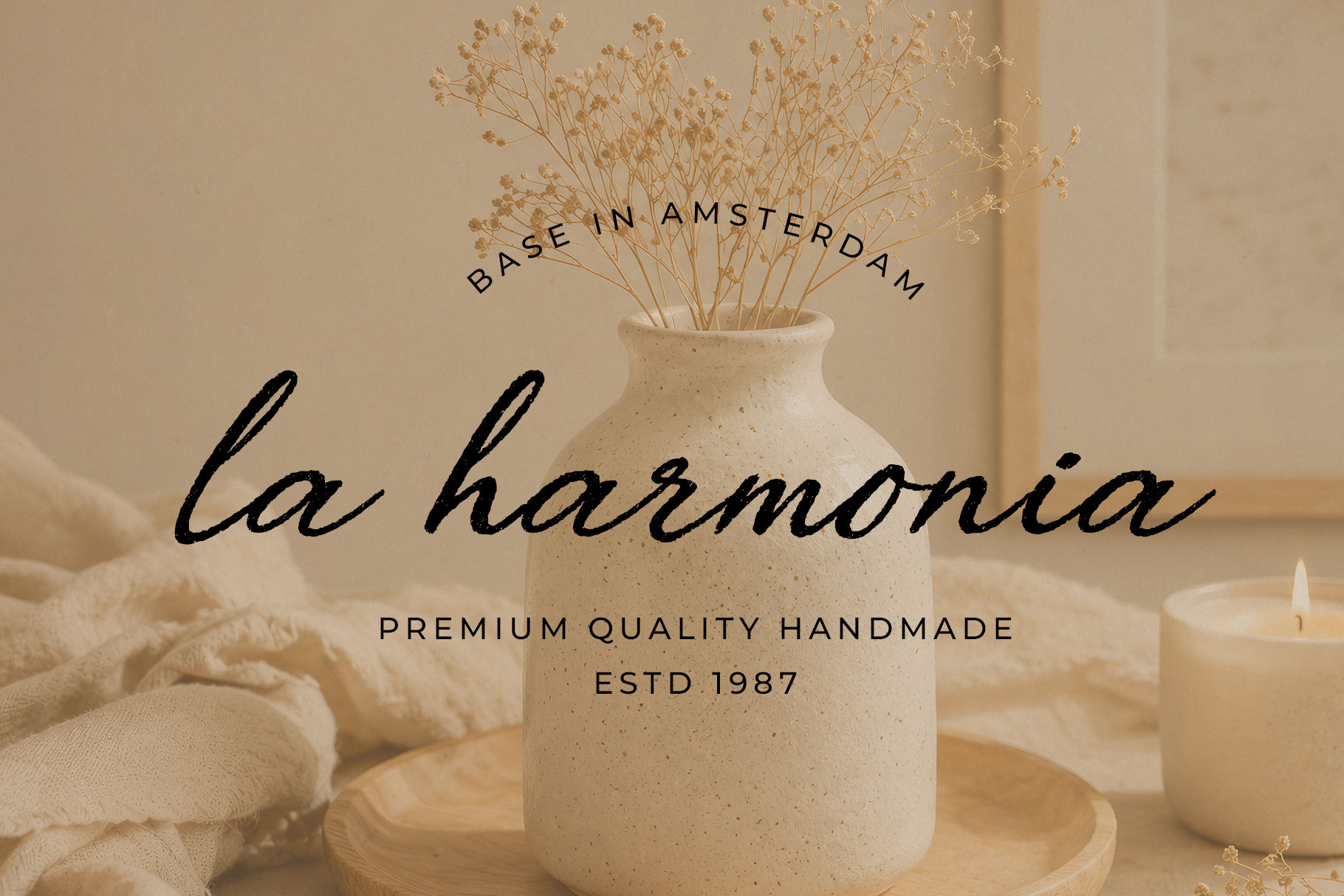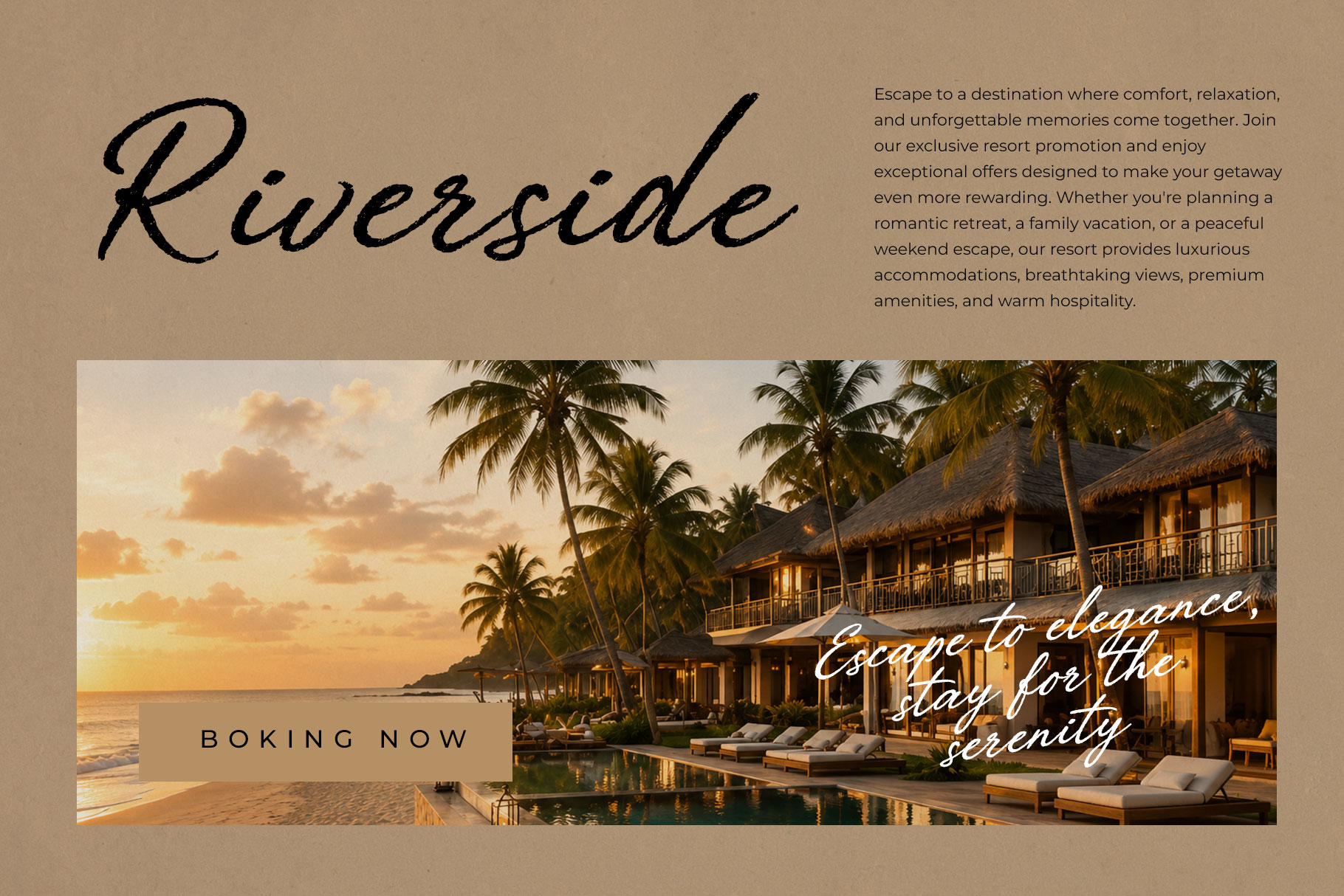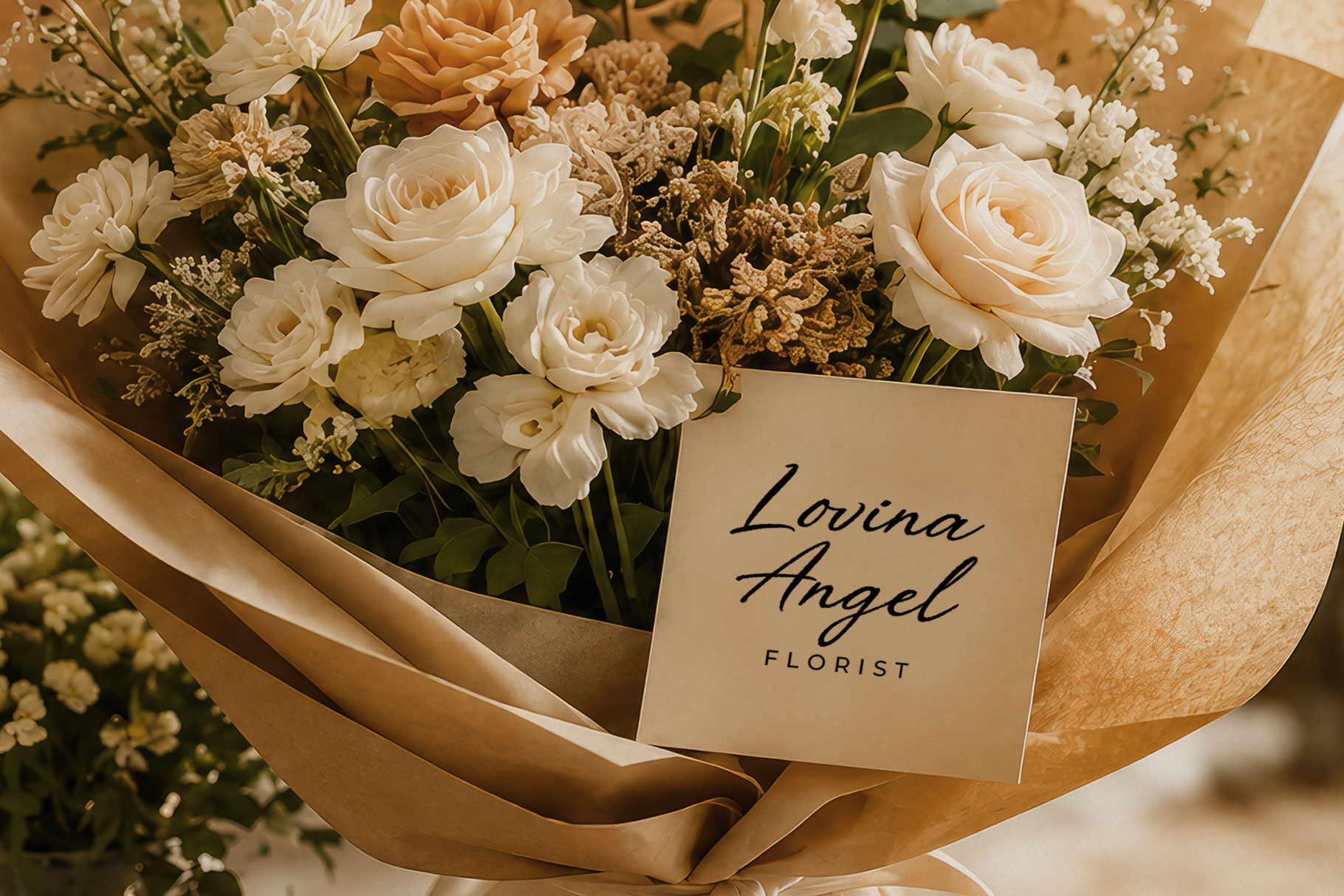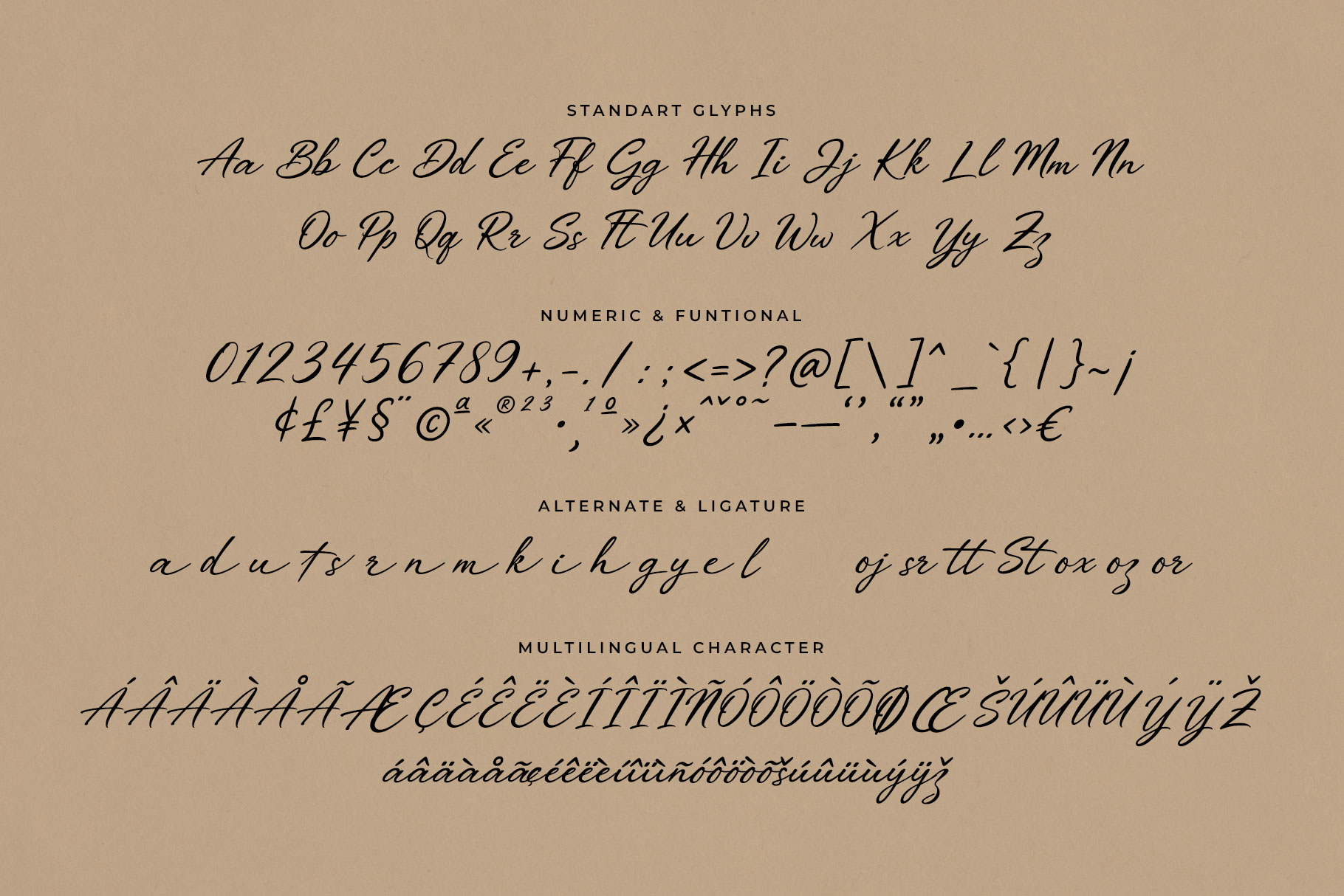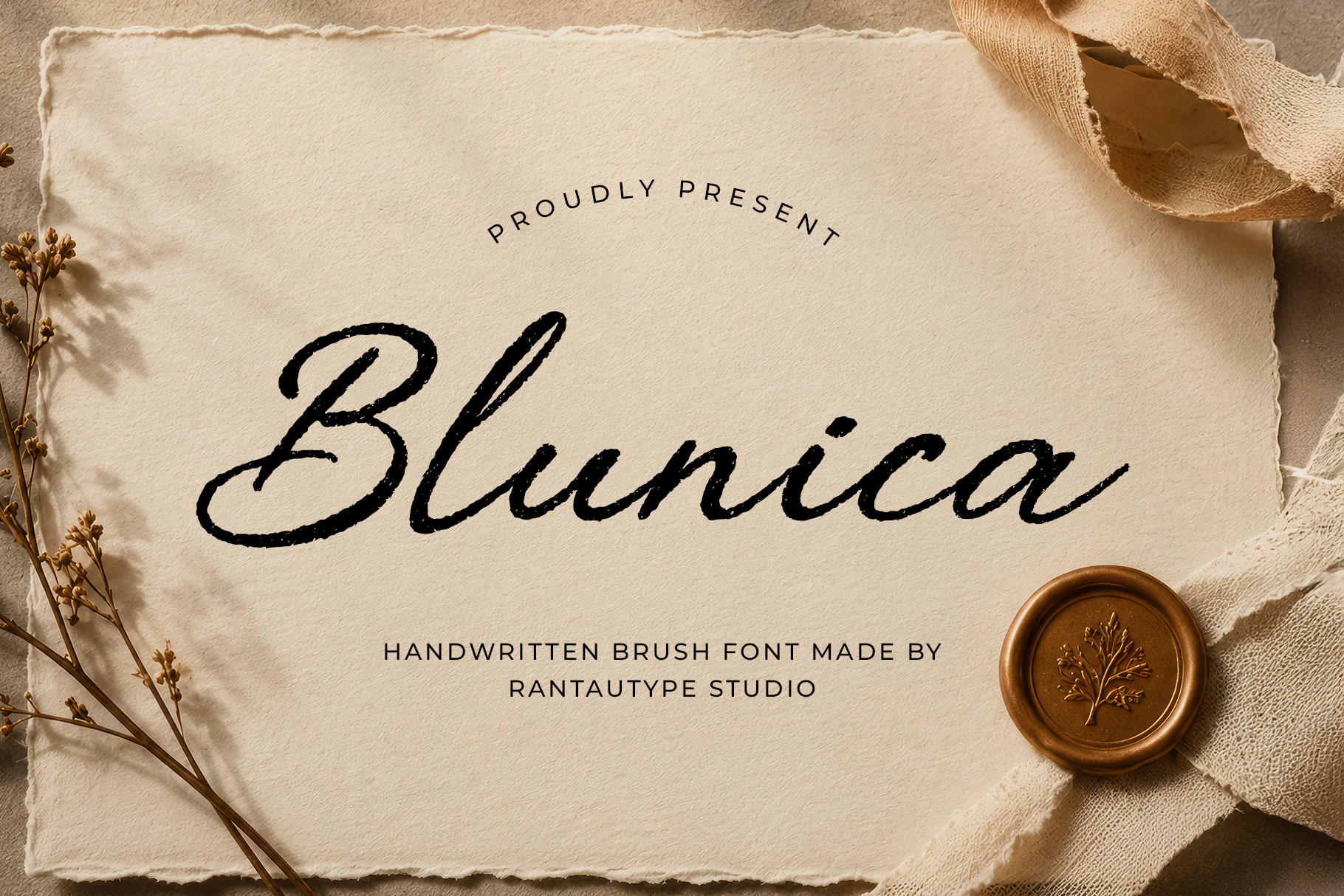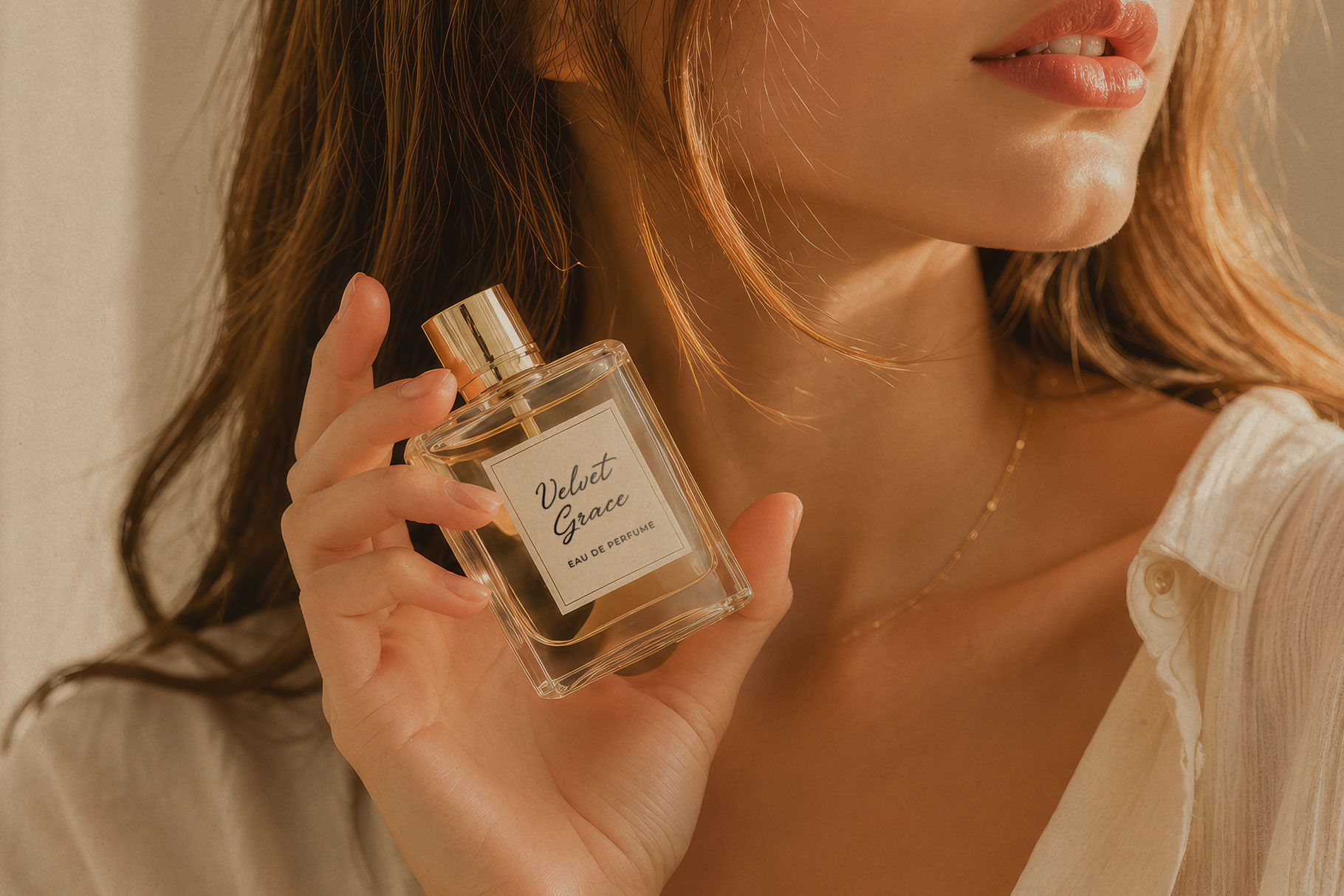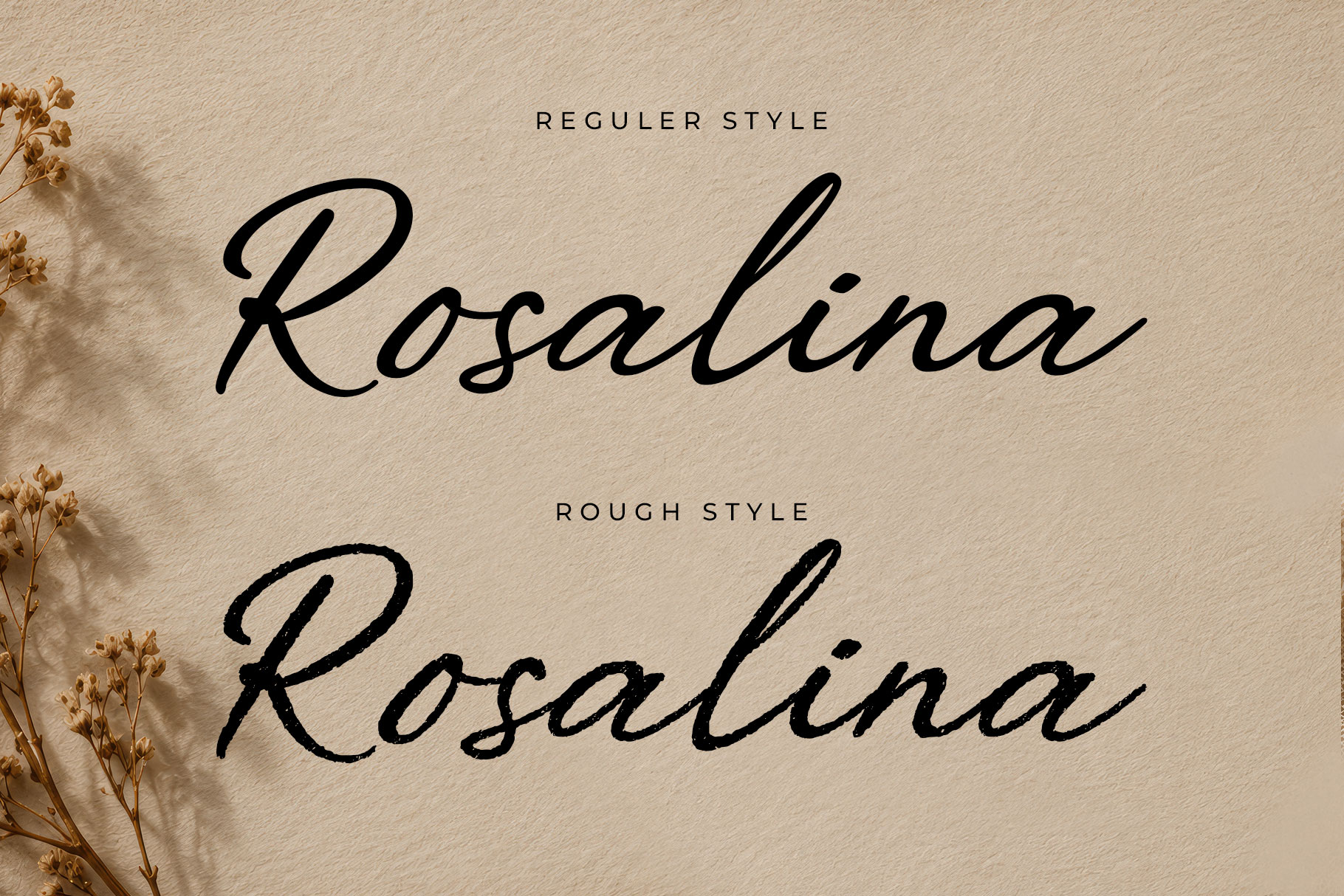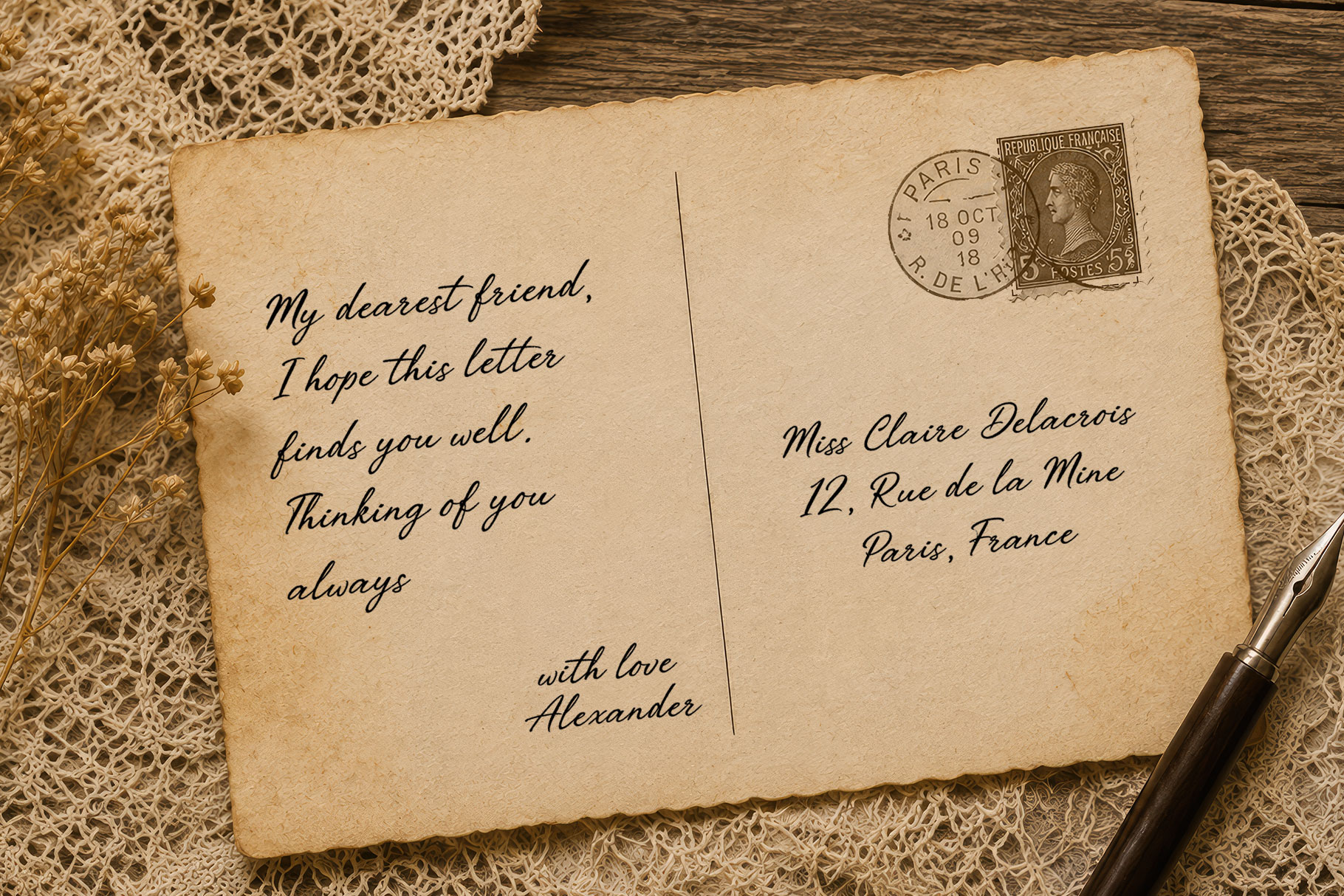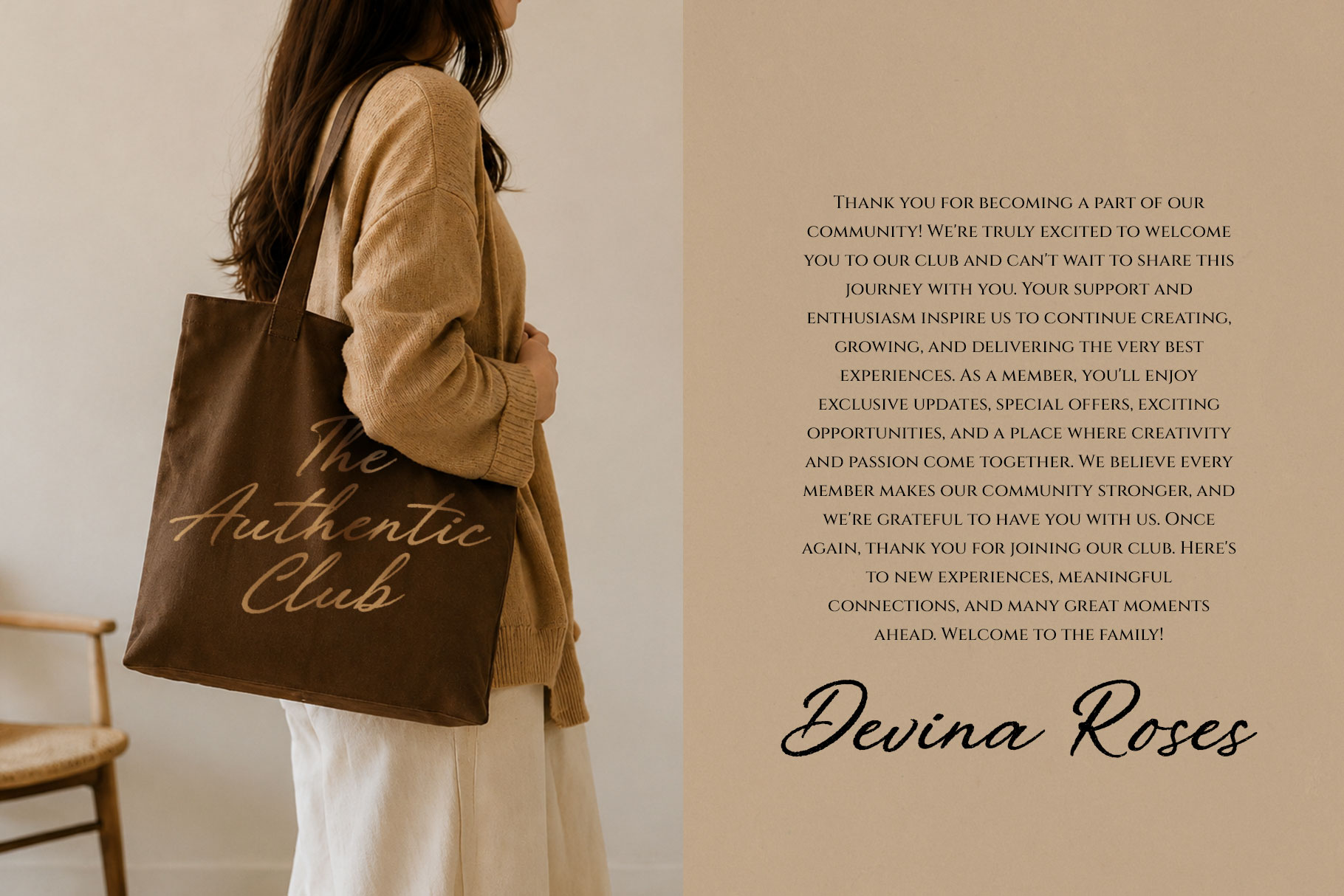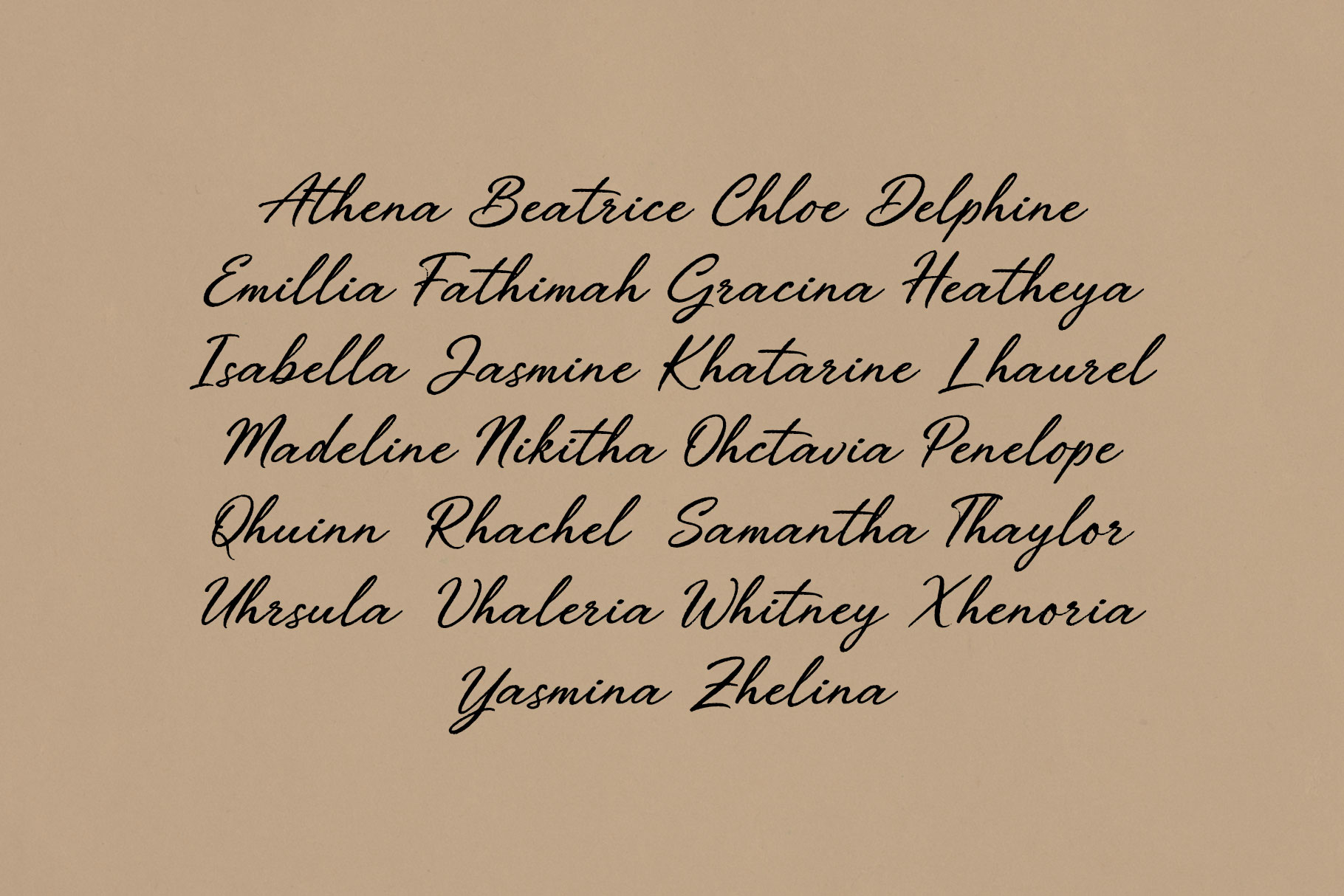
Blunica is a handwritten brush typeface that captures the beauty of natural handwriting with confident personality. Crafted with authentic brush textures and smooth flowing strokes, this font delivers a handcrafted appearance that feels both expressive and refined.
Blunica is a perfectly choice for any creative endeavor, creating, modern, lifestyle design such as logotype, title, cover, branding, invitations, wedding designs, display and magazine, social media posts, advertisements, printed quotes, product packaging, corporate brand, wedding invitations, product designs, labels, photography, watermarks, special events and any other project with natural touch.